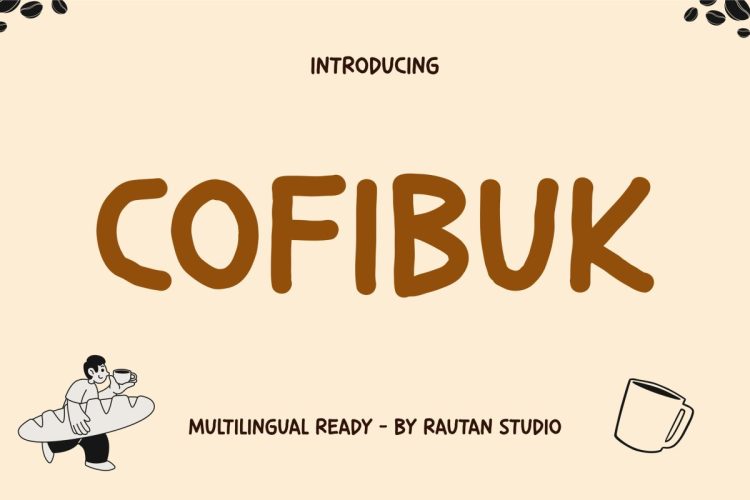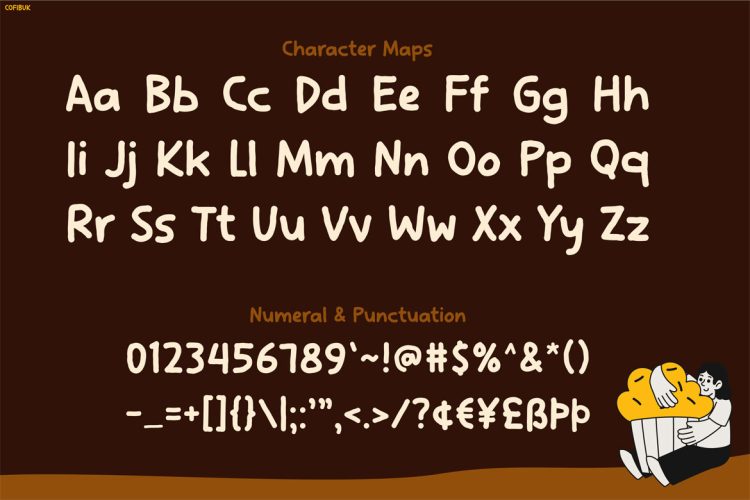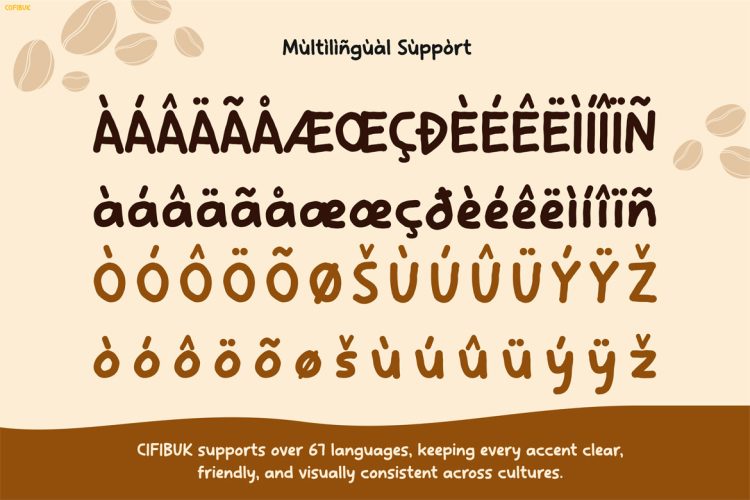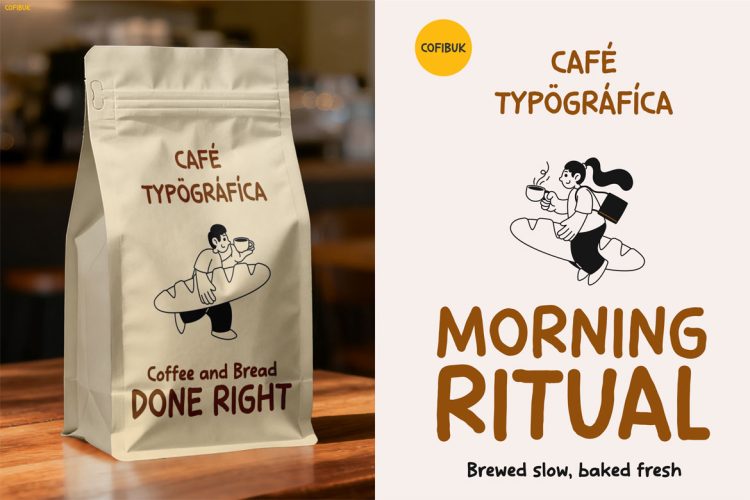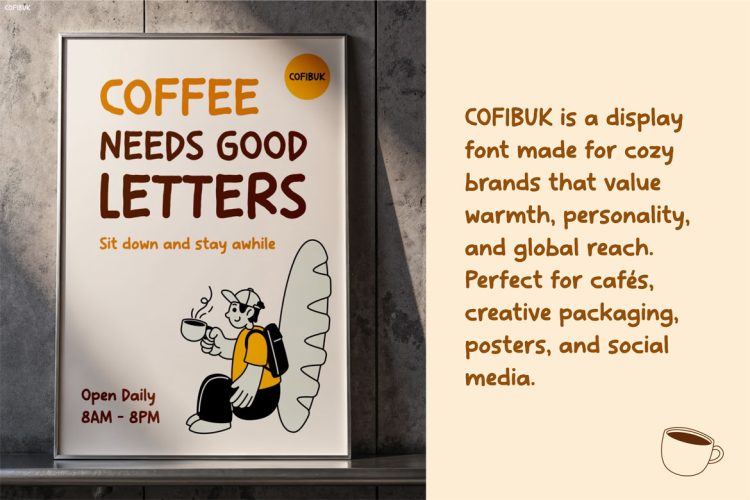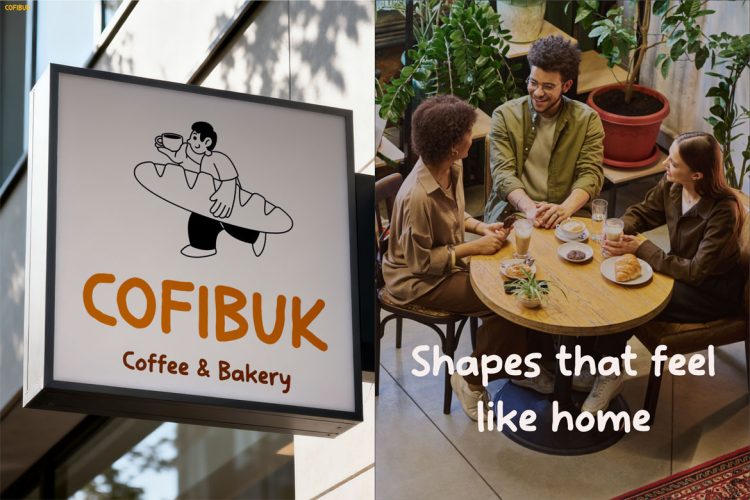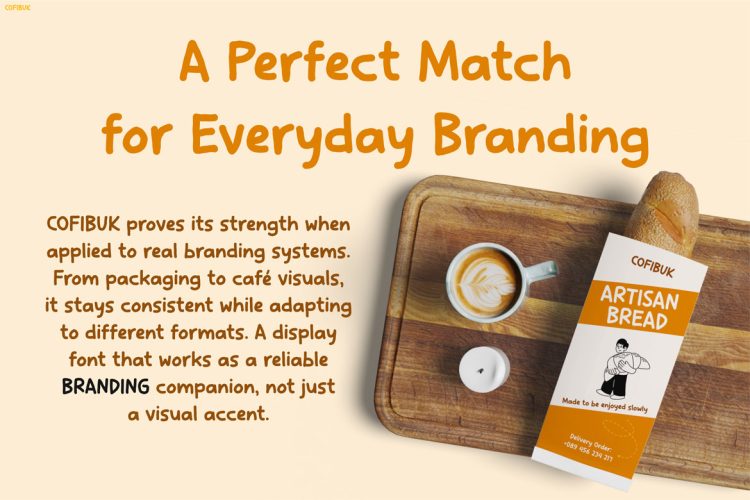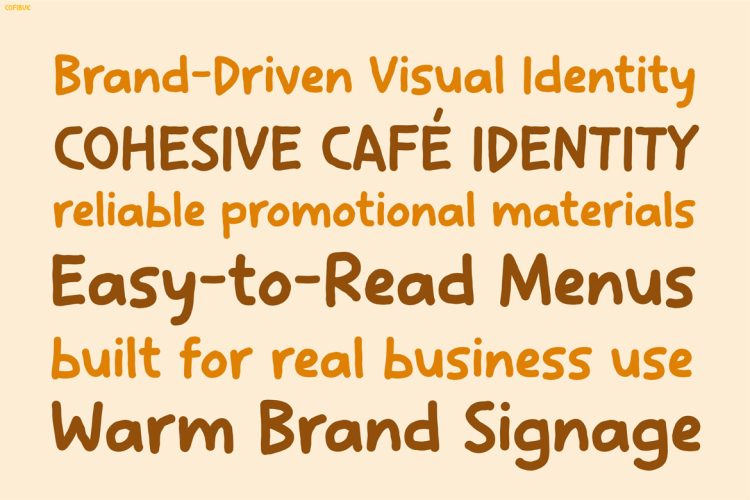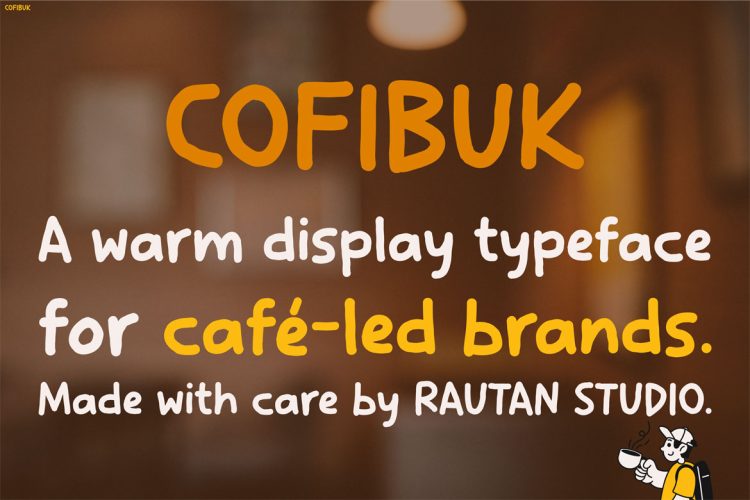
Kids Font COFIBUK โ Warm Letters, Friendly Stories
Kids Font COFIBUK brings warmth, charm, and clarity into every design. From the start, this typeface shows a friendly personality that feels welcoming. At the same time, rounded strokes, soft curves, and balanced proportions give each letter a human touch. As a result, the font creates a cozy visual rhythm that feels natural and engaging. Most importantly, Kids Font COFIBUK stands out because it blends playful character with strong readability. Because of this, designers can use it confidently for bold headlines and supporting text without losing clarity.
In addition, Kids Font COFIBUK draws inspiration from cafรฉ culture, handmade packaging, and everyday creative moments. For this reason, the letter shapes feel relaxed and cheerful, helping messages connect emotionally with viewers. Moreover, the font keeps visual weight consistent, so designs stay clean and easy to scan. Not only that, it supports 67 languages, allowing creators to reach global audiences with one unified style. Whether used in print or digital formats, this font keeps designs friendly, expressive, and reliable.
First, Kids Font COFIBUK offers a warm display style built for branding that values approachability and trust. Next, rounded terminals and smooth curves help messages feel soft and inviting. Because of this, designers often choose it for cafรฉ menus, coffee packaging, bakery labels, posters, and brand signage. At the same time, the font performs well in bold layouts while staying readable at different sizes.
Who Is It For
Primarily, Kids Font COFIBUK suits graphic designers, cafรฉ owners, bakery brands, food entrepreneurs, educators, and creative studios. In particular, it works well for menus, packaging, logos, posters, stickers, social media graphics, and storefront signage. Likewise, the font fits childrenโs products, learning materials, and family-friendly branding. Ultimately, anyone who wants a friendly and approachable visual voice can rely on this typeface.